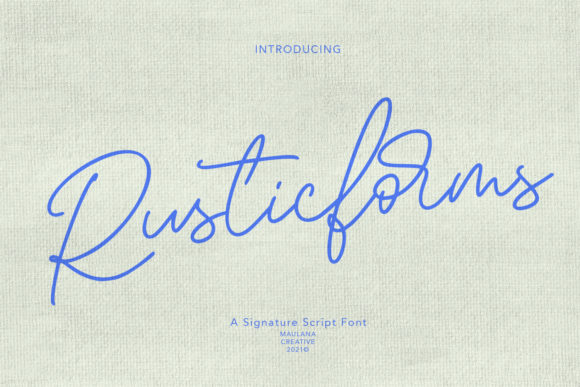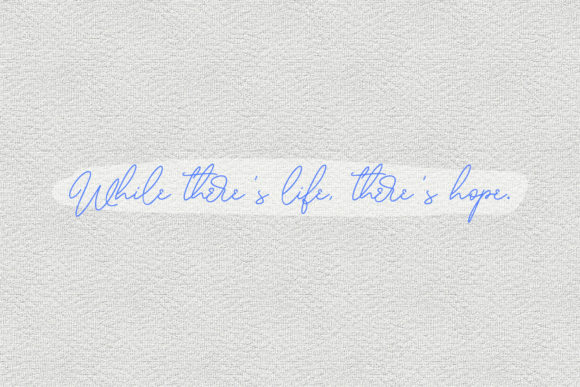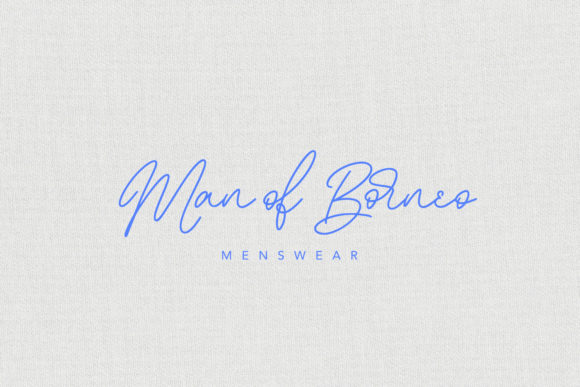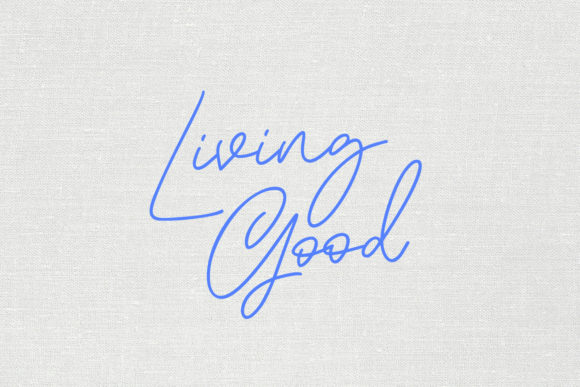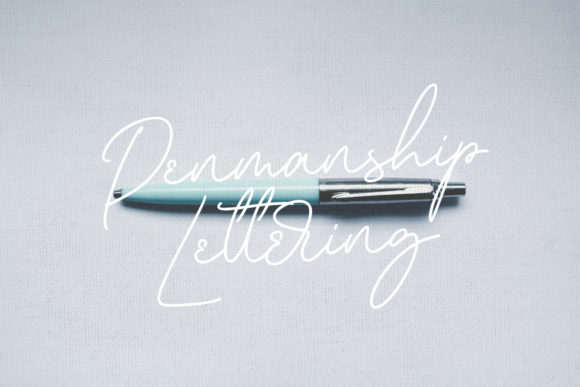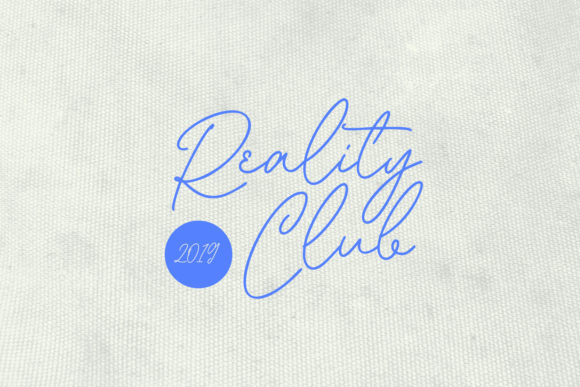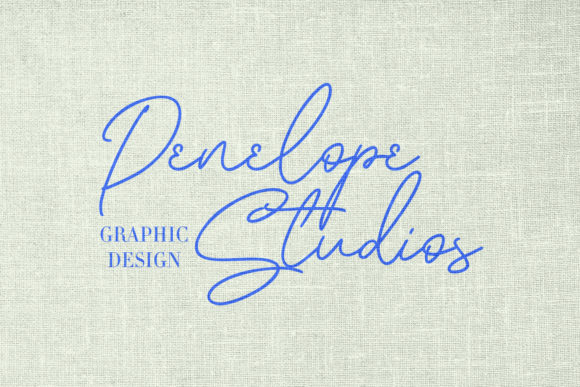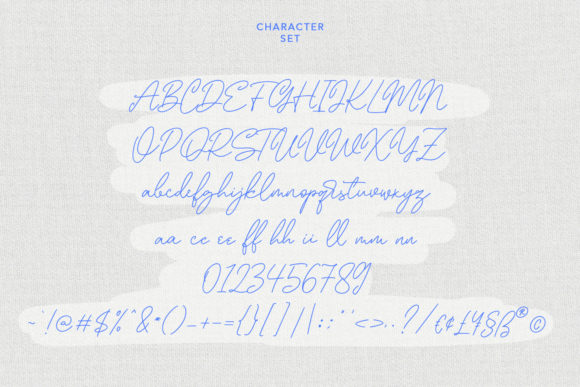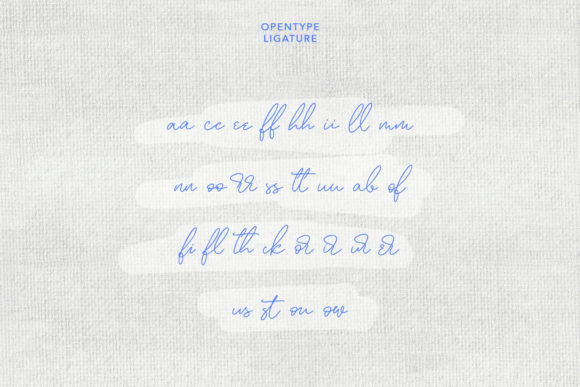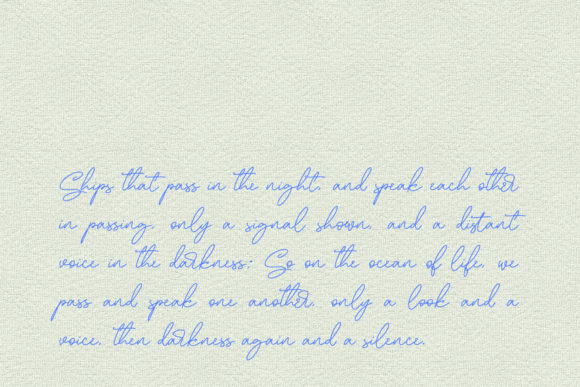
Rusticforms Font
Introducing “Rusticforms,” a beautiful light handwritten font that exudes a unique feel and creates a stunning impact. With its charming and distinct style, this font is the perfect choice for adding a touch of luxury to your design projects.
The delicate curves and intricate details of “Rusticforms” give it a handcrafted and authentic look. Its light weight and graceful strokes evoke a sense of elegance and sophistication. Whether you’re designing wedding invitations, creating stunning logos, or crafting beautiful stationery, this font will elevate your projects to new heights.
The versatility of “Rusticforms” allows it to seamlessly fit into a variety of design contexts. Its timeless appeal makes it suitable for a wide range of applications, from branding and packaging to editorial design and social media graphics. No matter the project, this font will bring a touch of refinement and sophistication.
With “Rusticforms,” you have access to a full set of characters and glyphs, allowing you to create stunning compositions and add custom touches to your designs. Its unique feel and stunning impact will captivate viewers and leave a lasting impression.
Whether you’re a professional designer or someone with a passion for creativity, “Rusticforms” will inspire you to create extraordinary designs. Its light and airy appearance brings a sense of freshness and elegance to your projects, making them stand out from the crowd.
So, if you’re looking to add a luxury spark to your design projects, look no further than “Rusticforms.” Embrace its unique feel and stunning impact to create captivating visuals that leave a lasting impression on your audience.
Get ready to transform your designs with the elegance and sophistication of “Rusticforms.” Let this beautiful light handwritten font become your go-to choice for creating stunning and memorable design projects.